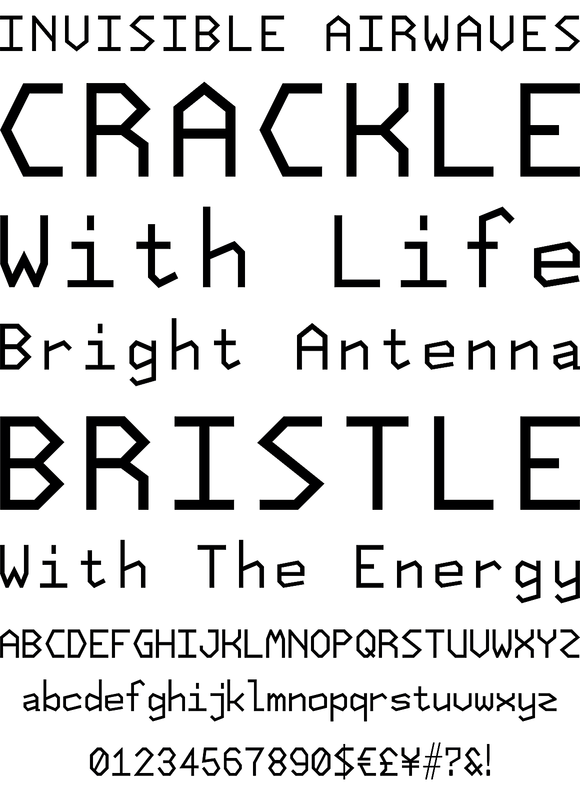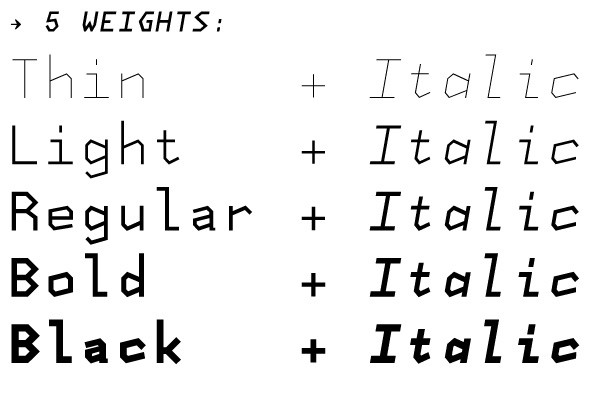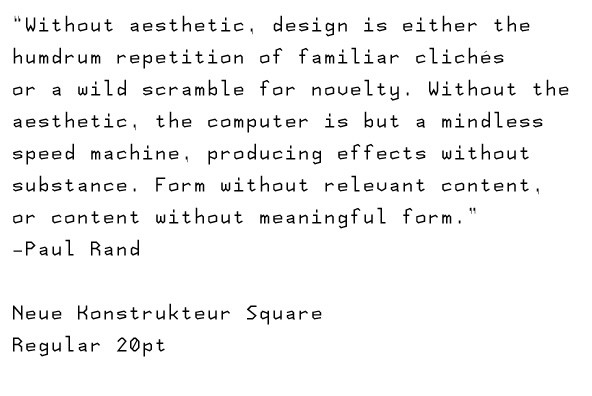
Neue Konstrukteur Square
Engineered font with a hint of heritage blackletter, this font inspired by a trip to Germany comes in two styles: Square and Round. Each has five weights from Thin to Black with accompanying italics.
Foundry: House of Burvo
Engineered font with a hint of heritage blackletter, this font inspired by a trip to Germany comes in two styles: Square and Round. Each has five weights from Thin to Black with accompanying italics. That makes 20 font files in total, enough for the most demanding projects. Also see the stylised sister font NK_Fracht.